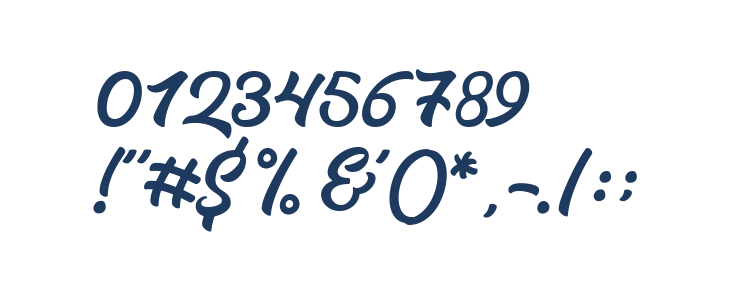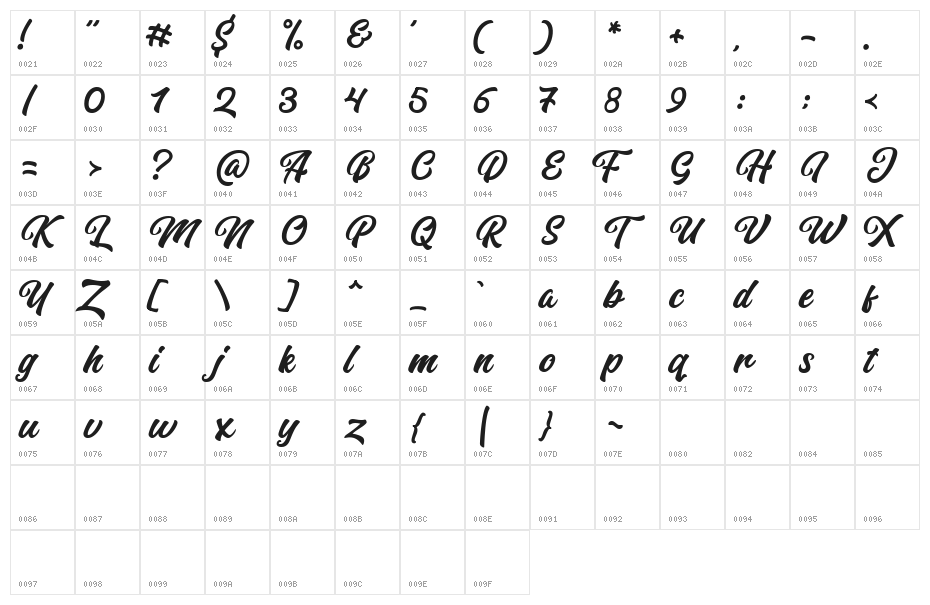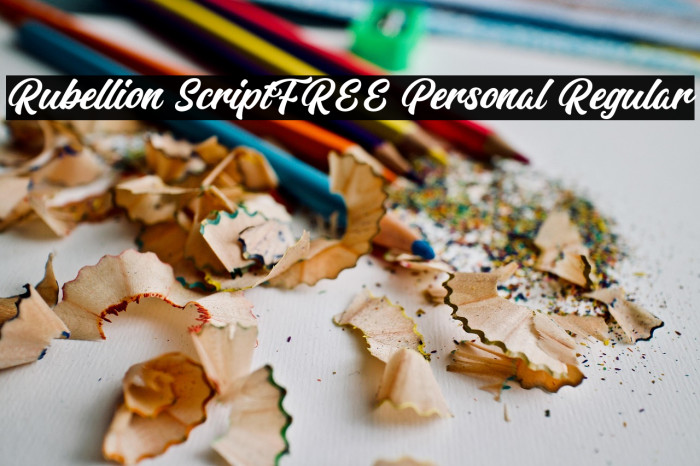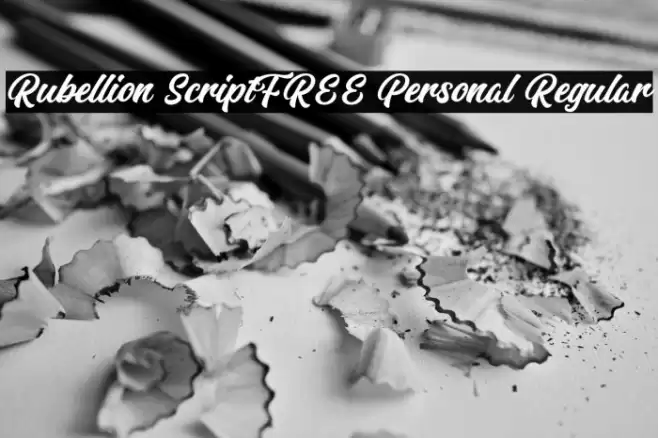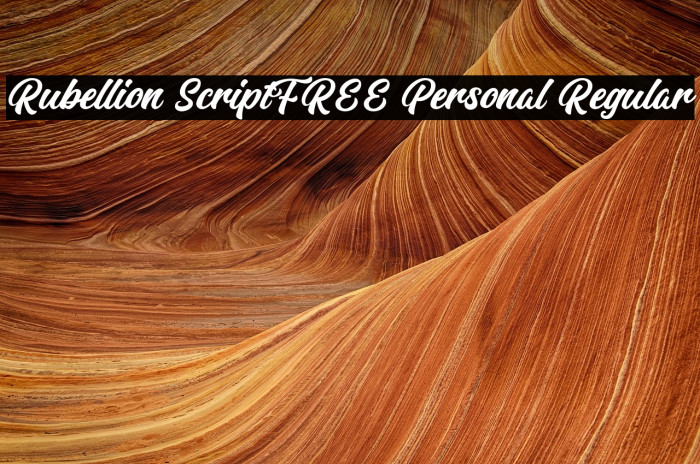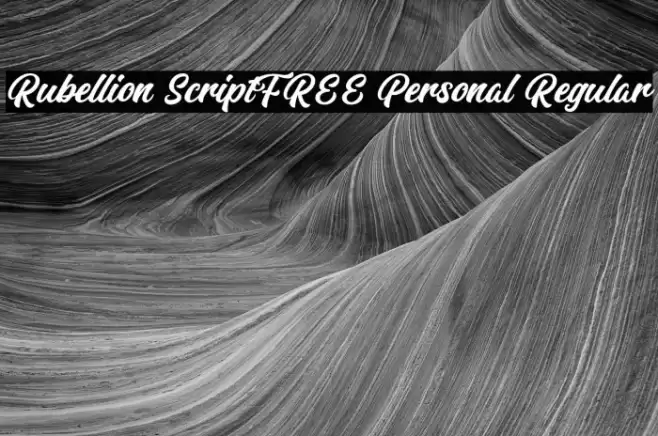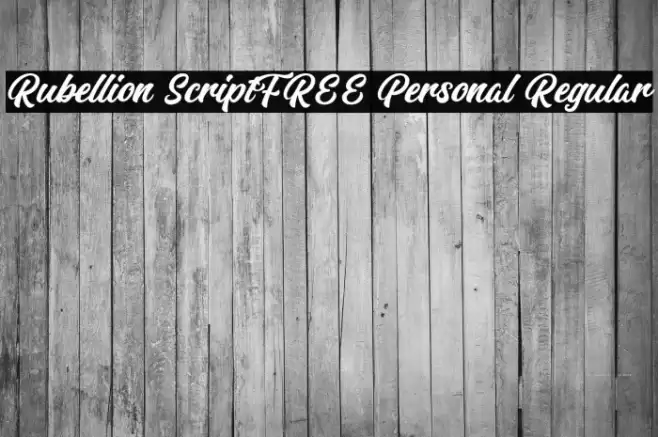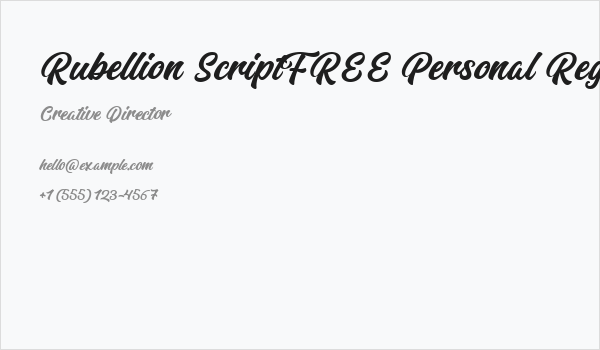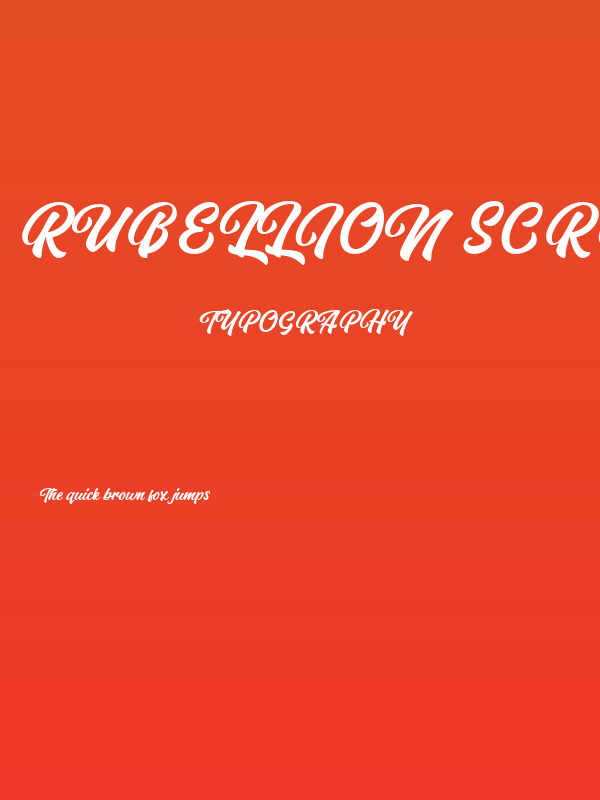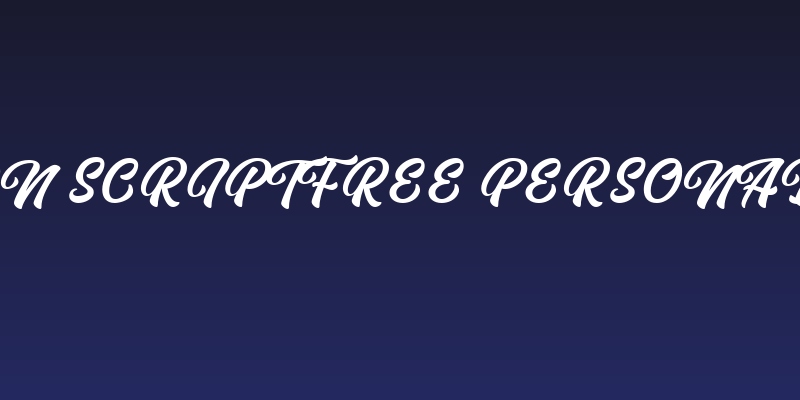
Rubellion Script FREE Personal Regular Font
Rubellion Script FREE Personal Regular Description
This font features a bold and flowing script style, characterized by its elegant and smooth curves. The uppercase letters are ornate, with intricate loops and swirls that give a sense of movement and grace. The lowercase letters maintain a consistent flow, creating a harmonious and cohesive look. The numerals are bold and slightly rounded, complementing the overall style. Special characters are designed with the same attention to detail, ensuring they blend seamlessly with the letters and numbers. This font exudes a sense of sophistication and charm, making it ideal for projects that require a touch of elegance.